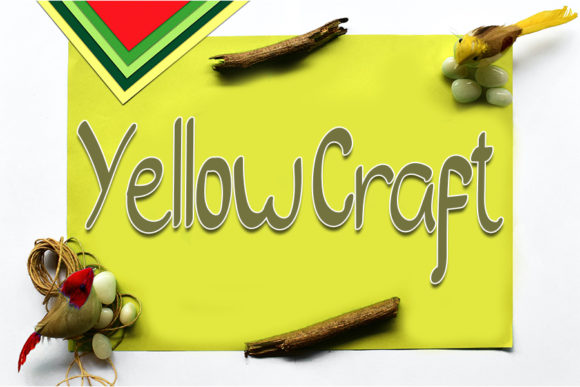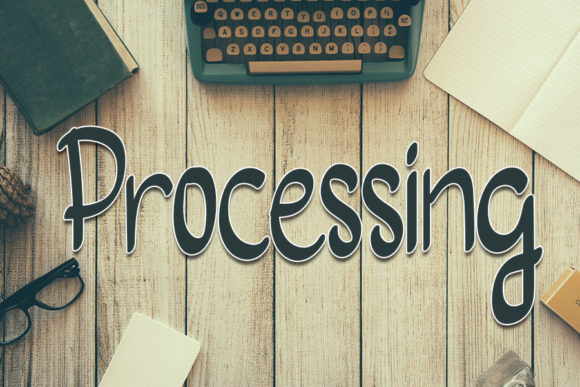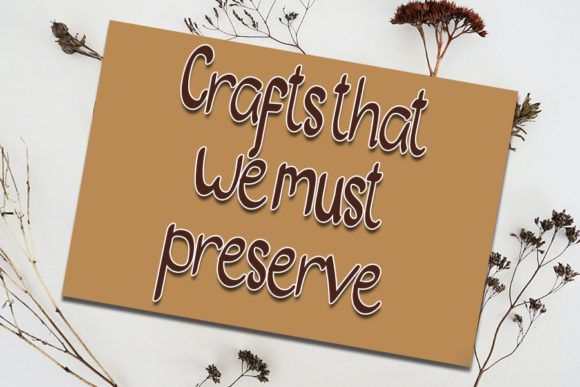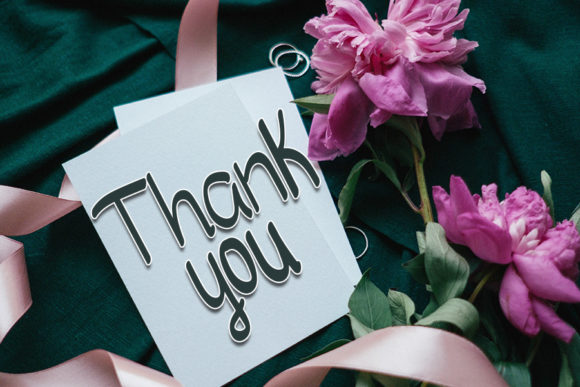
Introducing Handmade Font: Elevate Your Designs with a Modern Handwritten Touch
Are you a designer or crafter looking for a unique and trendy font to elevate your designs? Look no further than Handmade Font, a modern handwritten font that is sure to add a touch of personality to your creations. Featuring round lettered and a trendy vibe, Handmade Font is the perfect choice for anyone looking to add a personal touch to their designs.
What is Handmade Font?
Handmade Font is a modern handwritten font that is designed to mimic the look and feel of handwriting. With its round lettered and fluid strokes, this font has a friendly and approachable feel that is perfect for a wide range of design applications. Whether you’re creating a logo, a poster, or a social media graphic, Handmade Font is sure to add a touch of warmth and personality to your design.
Key Features of Handmade Font
- Round Lettered: Handmade Font features round lettered that give it a soft and friendly feel.
- Trendy Vibe: This font has a trendy and modern vibe that is perfect for designers and crafters who want to create unique and eye-catching designs.
- Handwritten Style: Handmade Font has a handwritten style that is perfect for adding a personal touch to your designs.
- Easy to Read: Despite its handwritten style, Handmade Font is easy to read and understand, making it perfect for body text and headings.
Benefits of Using Handmade Font
There are many benefits to using Handmade Font in your designs. Here are just a few:
- Adds Personality: Handmade Font adds a touch of personality to your designs, making them stand out from the crowd.
- Perfect for Branding: This font is perfect for branding applications, such as logos and business cards, where you want to create a unique and memorable impression.
- Great for Social Media: Handmade Font is also great for social media graphics, such as Instagram posts and Facebook graphics, where you want to create eye-catching and engaging content.
Tips and Tricks for Using Handmade Font
Here are a few tips and tricks for using Handmade Font:
- Use it for Headings: Handmade Font is perfect for headings and titles, where you want to create a bold and eye-catching statement.
- Pair it with Other Fonts: This font pairs well with other fonts, such as sans serif fonts, to create a unique and interesting contrast.
- Experiment with Colors: Handmade Font looks great in a variety of colors, so don’t be afraid to experiment and find the perfect color for your design.
In conclusion, Handmade Font is a modern handwritten font that is perfect for designers and crafters who want to add a personal touch to their designs. With its round lettered and trendy vibe, this font is sure to elevate your designs and make them stand out from the crowd. So why not give it a try and see the difference it can make?